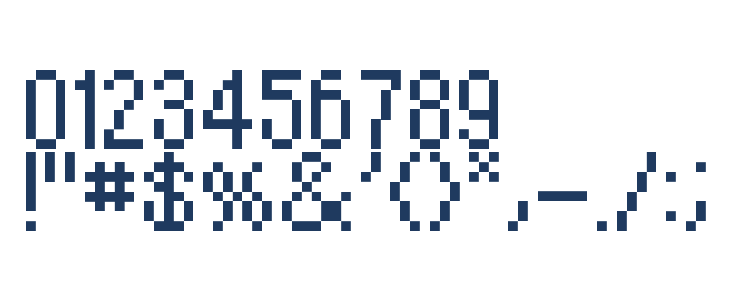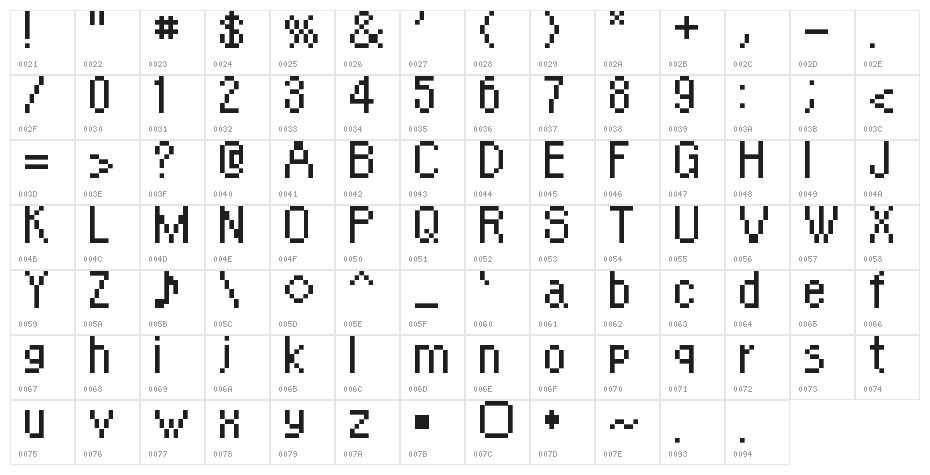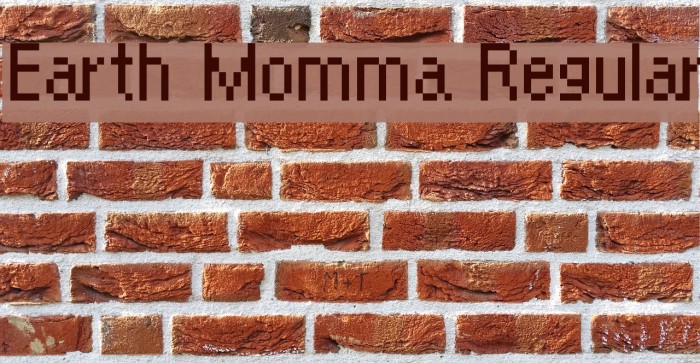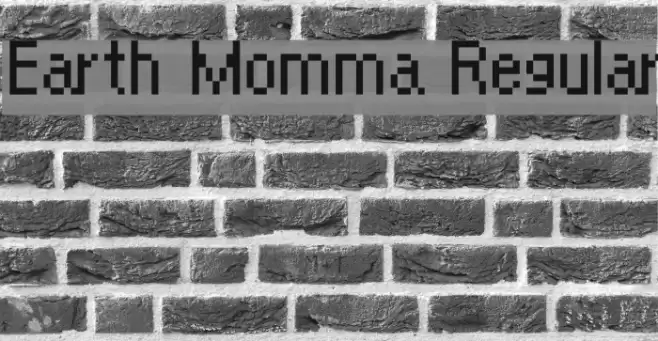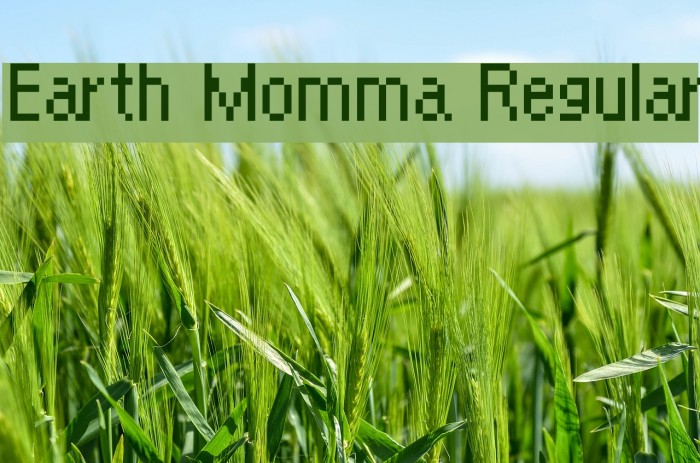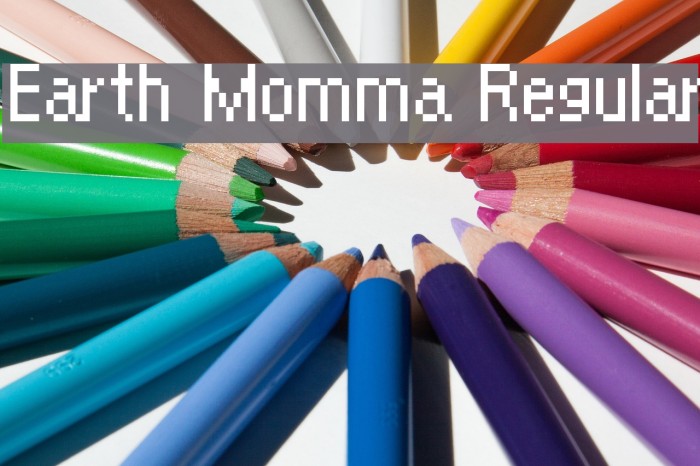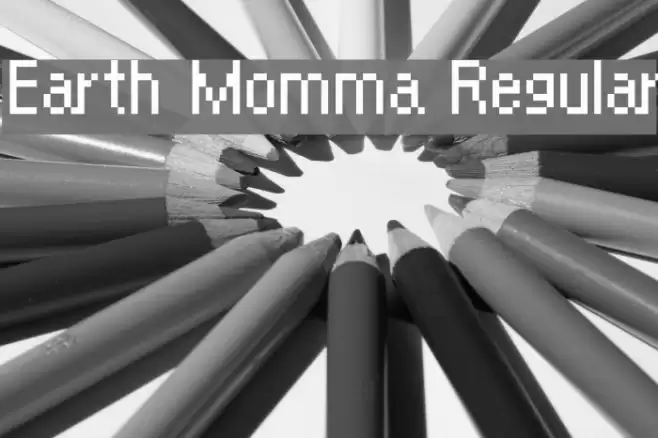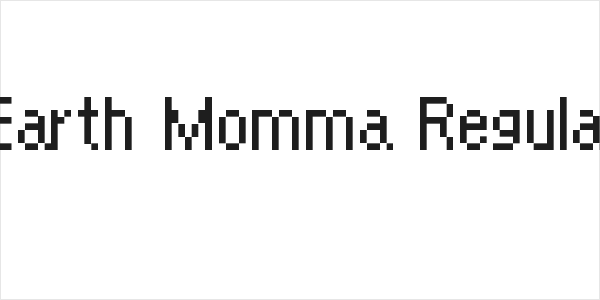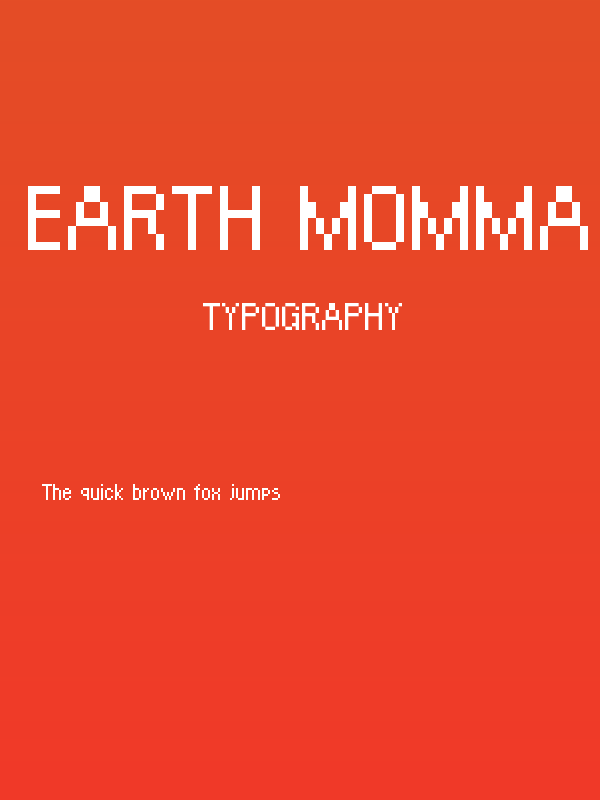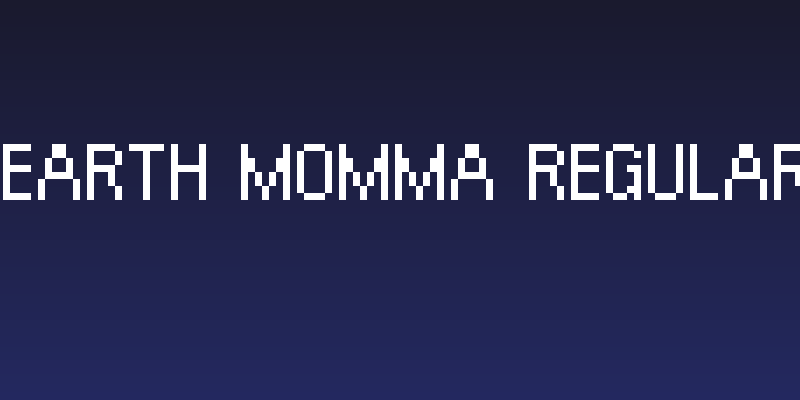
Earth Momma Regular Font
Earth Momma Regular Description
This font features a pixelated, blocky design reminiscent of early digital displays or retro video games. Each character is constructed with a grid-like precision, giving it a distinctly digital and geometric appearance. The uppercase and lowercase letters maintain a consistent height, with minimal differentiation in width, enhancing its monospaced feel. Numbers and special characters follow the same structured pattern, ensuring uniformity across all glyphs. This style evokes a sense of nostalgia, making it ideal for projects that aim to capture a vintage digital aesthetic.
| Use Case | Logos, Headlines, Digital displays |
| Proposed Projects | Ideal for retro video game designs, digital art projects, tech-themed posters, and nostalgic branding. |